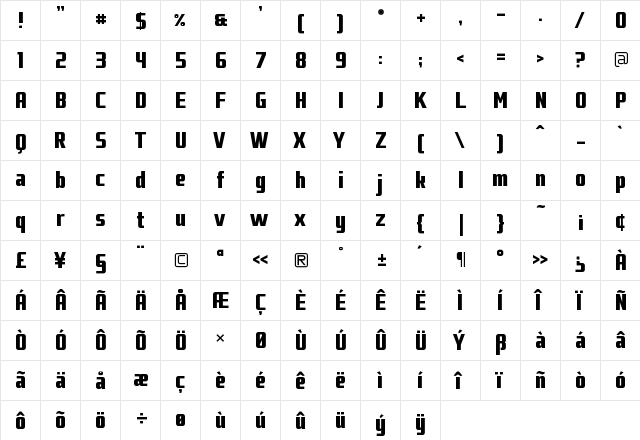
Fragma Black
Design Context for Fragma Typeface
Fragma offers clean, dependable letterforms without strong stylistic allegiance, making it a practical choice for designers who need flexibility.